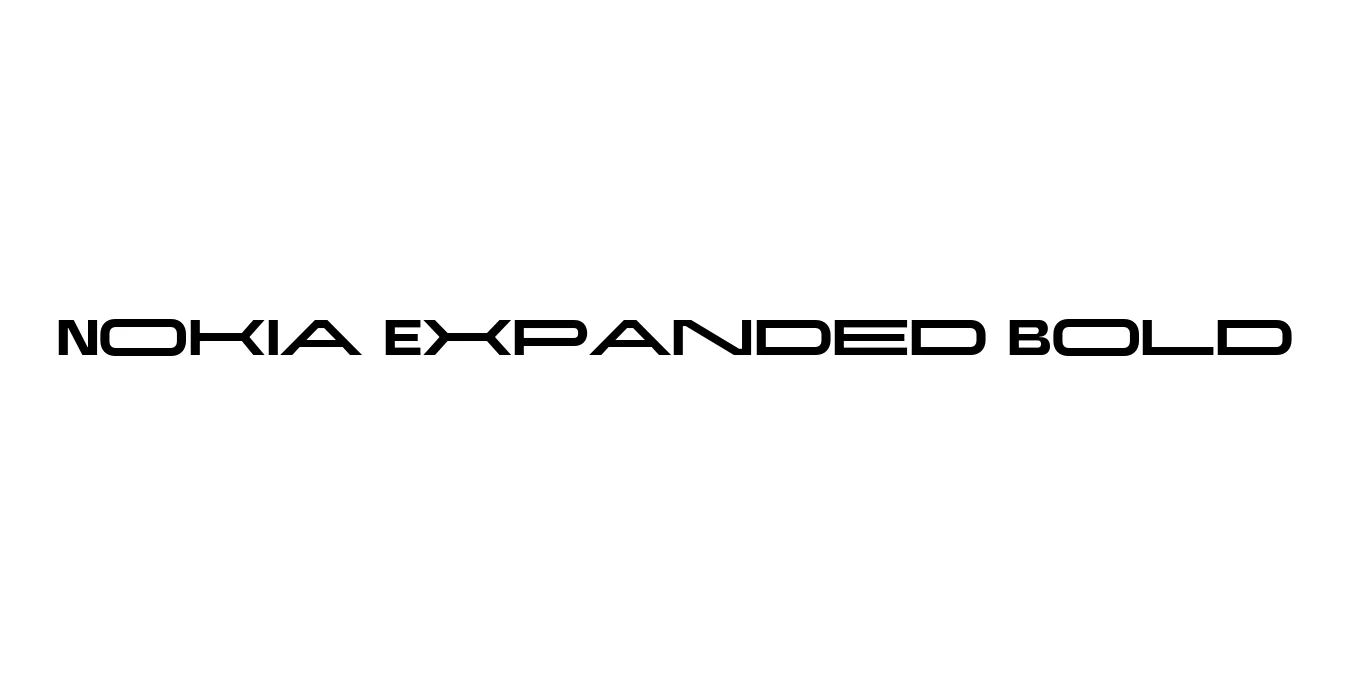
Nokia Expanded Bold
Designed by Agfa Monotype / Nokia Design
| Font Name | Nokia Expanded |
| Designer | Agfa Monotype / Nokia Design |
Nokia Expanded Bold is a heavy-weight, wide sans-serif typeface that became an integral part of the global corporate identity for the Finnish telecommunications giant during its dominant era. This font is characterized by its extended horizontal proportions and thick stroke weights, which were designed to project a sense of stability, reliability, and technological leadership. It was used extensively across mobile device interfaces, physical product branding, and global advertising campaigns.
The typeface belongs to a larger family developed to maintain clarity across various mediums, from low-resolution screen displays to large-scale print billboards. While Nokia has since updated its brand typography to the more modern 'Nokia Pure,' the Expanded Bold variant remains a nostalgic hallmark of early 2000s technology. Its industrial aesthetic and clean geometry make it highly effective for display purposes where a bold, authoritative voice is required.